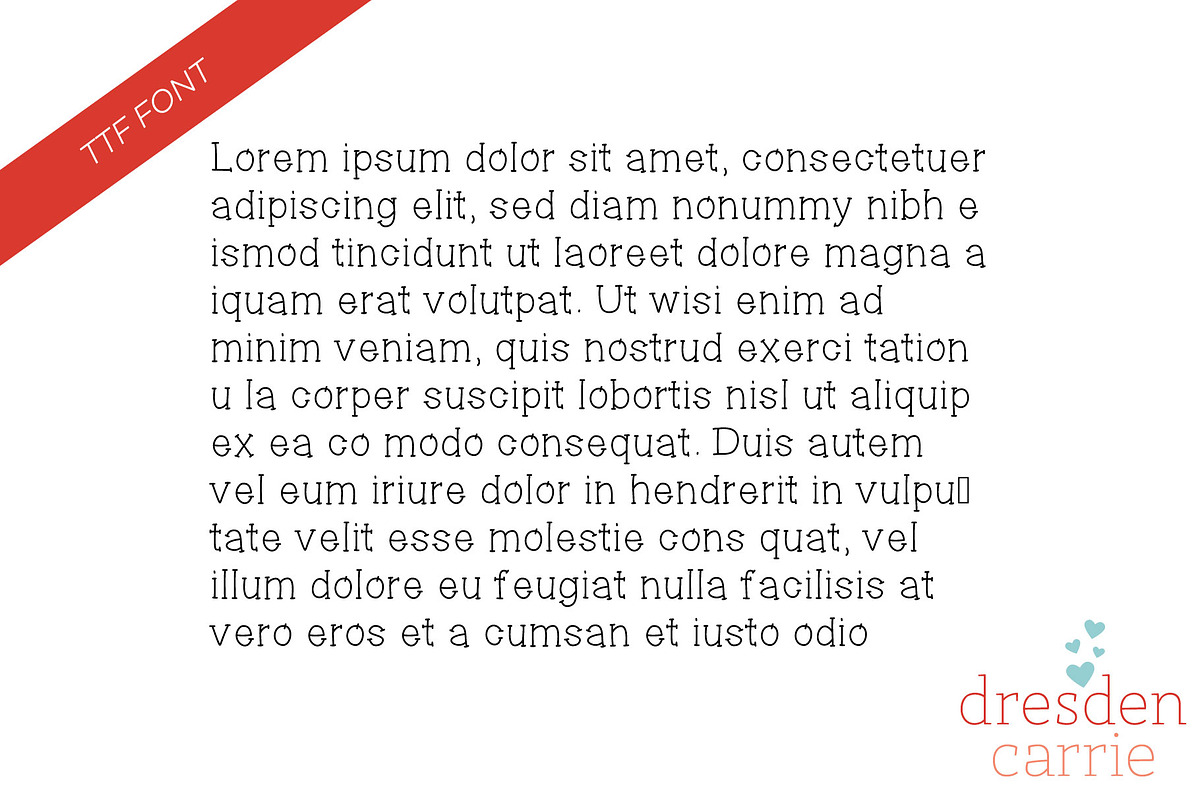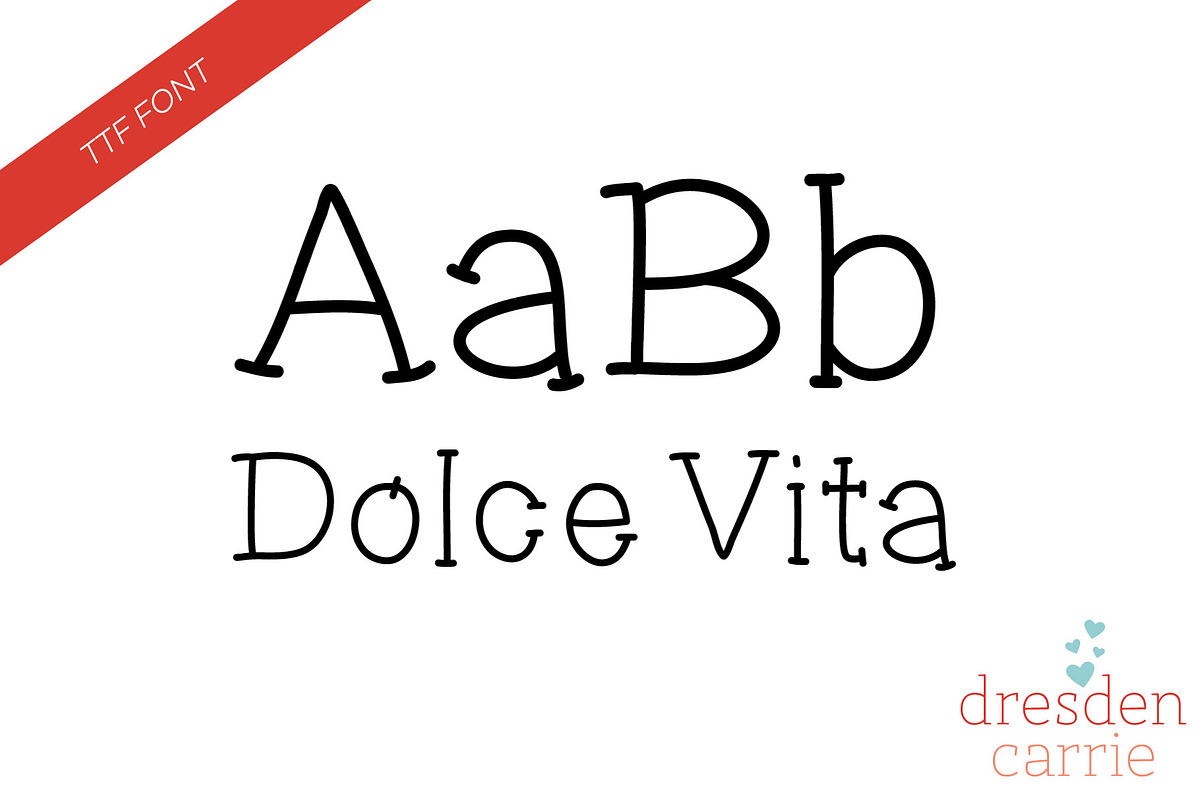
Dolce Vita Hand-Drawn Font
Why Dolce Vita Hand-Drawn Font is worth a look
Dolce Vita Hand-Drawn Font by dresdencarrie designs fits naturally into Branding, posters, packaging, typography.